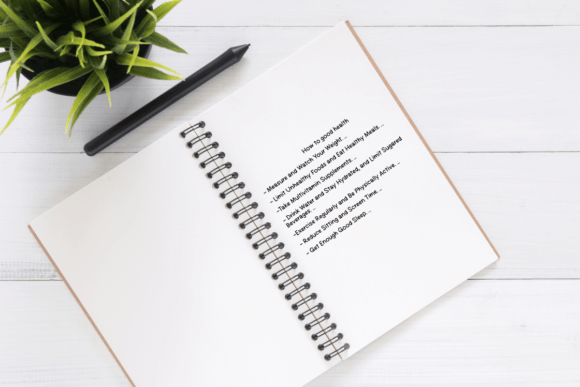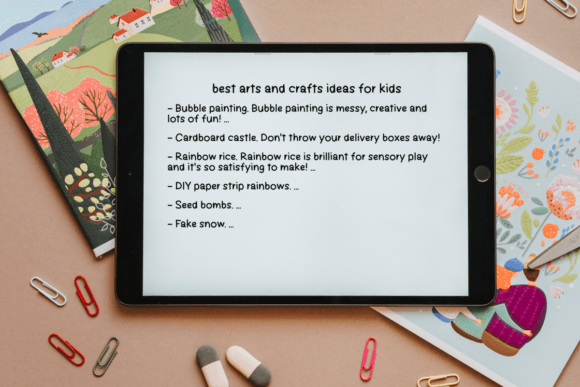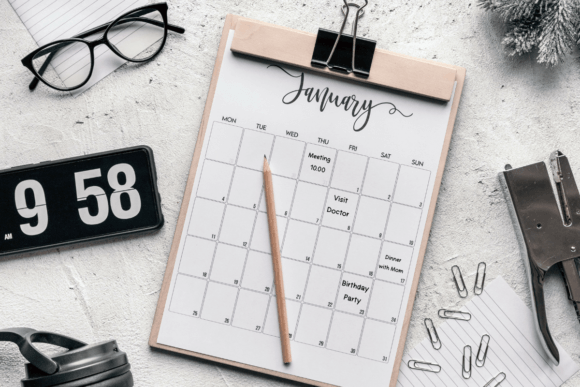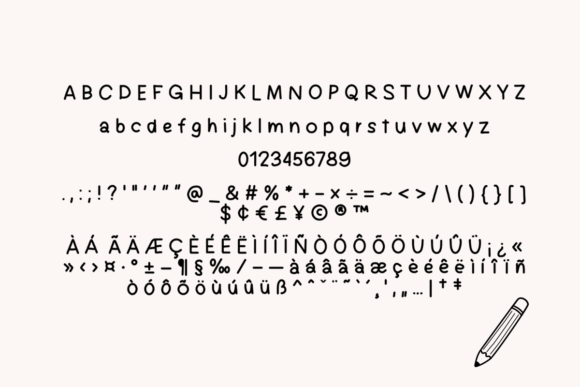
Introduction to Lecture Day Font Font
Fonts play a crucial role in design, and the Lecture Day Font font is a typeface that brings both character and versatility to any project. Whether you’re working on a branding project, a website, or a print design, the Lecture Day Font font offers a unique style that can elevate your work.
Lecture day font is a hand written font that good for take a note or lecture on planner or ipad.
You can add them to make it great for creative projects .
Key Features of Lecture Day Font Font
Why Choose Lecture Day Font Font?
The Lecture Day Font font is more than just a typeface – it’s a design tool that helps you communicate your message with style and clarity. Its unique character set and versatile design make it suitable for a wide range of applications, from elegant invitations to bold headlines.
With its carefully crafted letterforms and balanced proportions, the Lecture Day Font font ensures readability and visual appeal across all mediums.
What makes Lecture Day Font font special?
The Lecture Day Font font stands out with its unique design, exceptional readability, and versatility across various design applications.